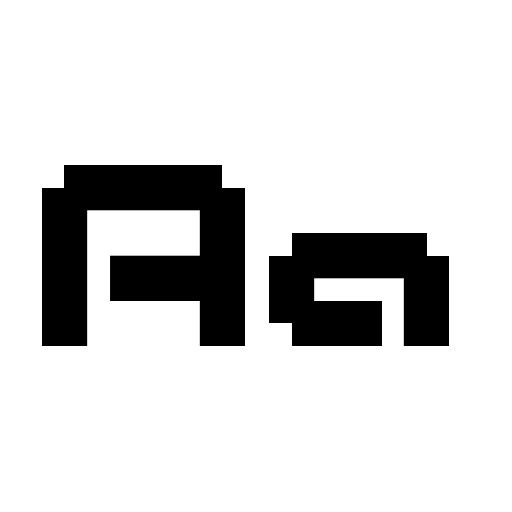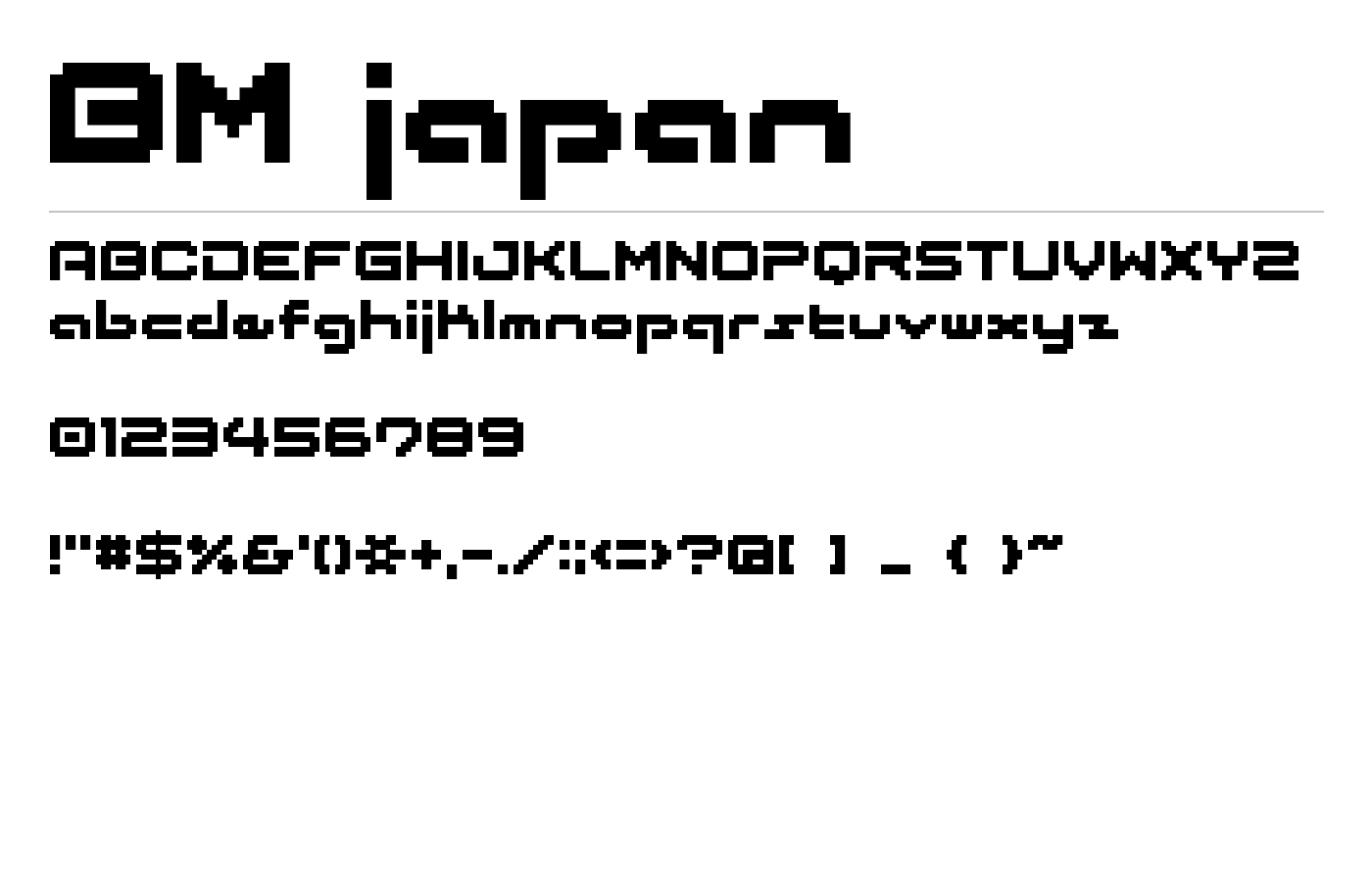
BM Japan is a pixelated, monospaced sans serif font with a bold weight and a compact, square shape that evokes classic digital and retro gaming aesthetics. Its blocky, highly geometric letterforms deliver a tech-savvy and playful vibe, making it ideal for video game titles, tech branding, or any design where a nostalgic digital feel is desired. This font works best in display uses such as logos, posters, and web headers where its strong personality can truly stand out.
BM japan Font